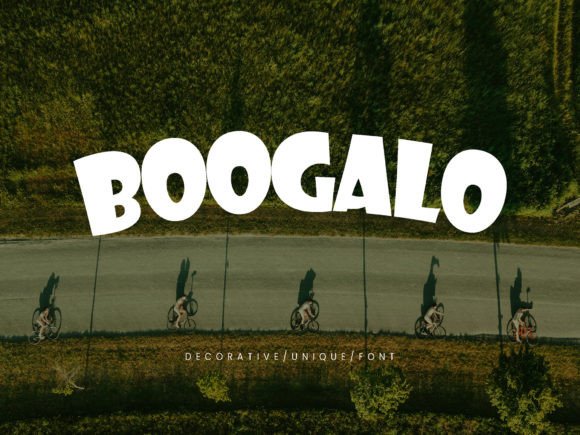
Step into the realm of visual grandeur with Boogalo, the extraordinary display font designed to elevate your digital creations to new heights of artistic expression. Crafted with meticulous detail by the renowned artnivora.std, this typographic masterpiece unravels a captivating blend of simplicity and uniqueness, promising to transform your designs into works of art.
Boogalo's essence lies in its ability to effortlessly fuse elegance with a touch of playfulness, making it the perfect choice for an array of creative projects. Its meticulously hand-crafted characters exude a charm that instantly captures the eye, inviting your audience on a journey through a world of captivating visual experiences.
Whether you're a seasoned design virtuoso or just starting your foray into the realm of digital artistry, Boogalo serves as your ultimate companion, guiding you towards a world of limitless creative possibilities. Unleash your imagination and let the symphony of Boogalo's characters dance across your screen, weaving tales of elegance and originality.
With Boogalo, the mundane becomes extraordinary. Your logos will radiate with a newfound vibrancy, captivating your audience from the very first glance. Your social media posts will transform into vibrant canvases, alive with an energy that ignites engagement and propels your brand to new heights of recognition. Your brochures will evolve into captivating narratives, effortlessly conveying your message with a finesse that leaves a lasting impression.
And that's just the beginning. The versatility of Boogalo knows no bounds. Its characters seamlessly adapt to a myriad of design endeavors, from captivating magazine layouts that transport readers to distant lands to UI/UX designs that seamlessly blend form and function, Boogalo is your trusted ally, ready to elevate your creations to unparalleled levels of visual allure.
But Boogalo is more than just a font; it's an experience. Its every curve, every stroke, every carefully placed accent carries the weight of artistic passion and dedication. By choosing Boogalo, you not only acquire a font, but you embark on a creative odyssey, where the boundaries of imagination are limitless and the possibilities are as vast as the universe itself.